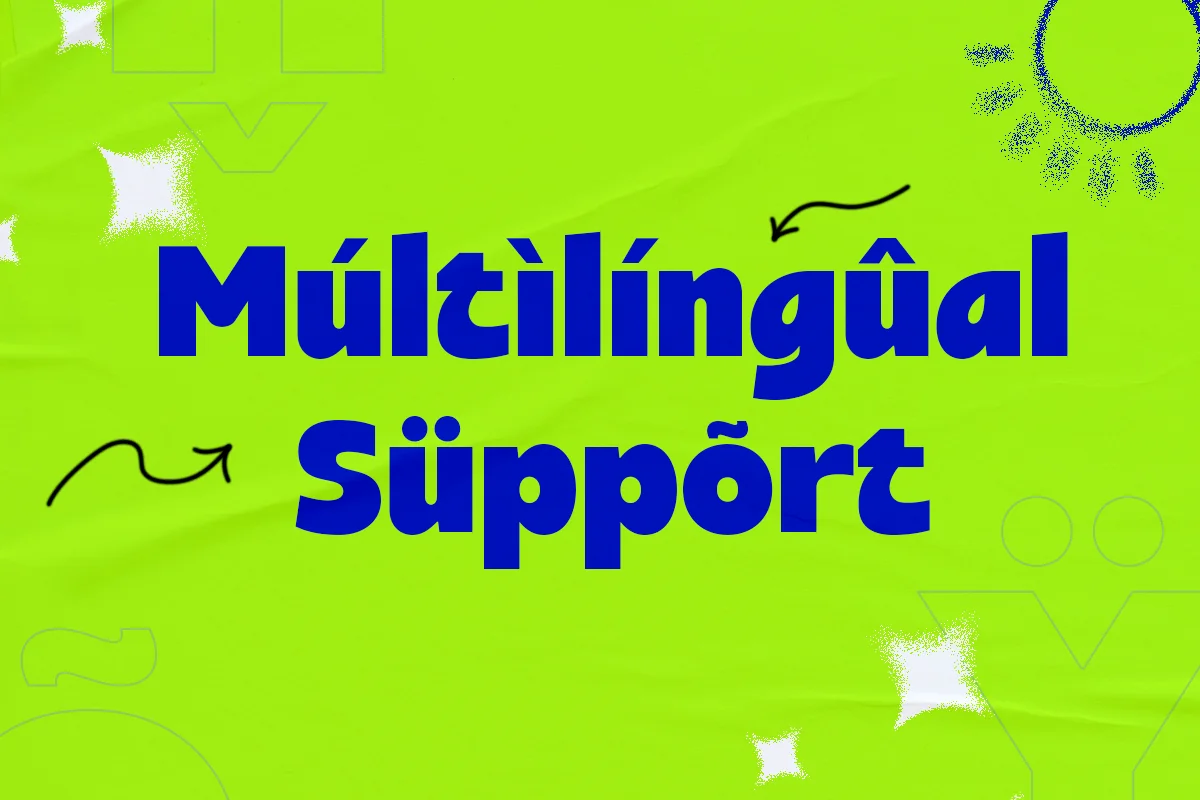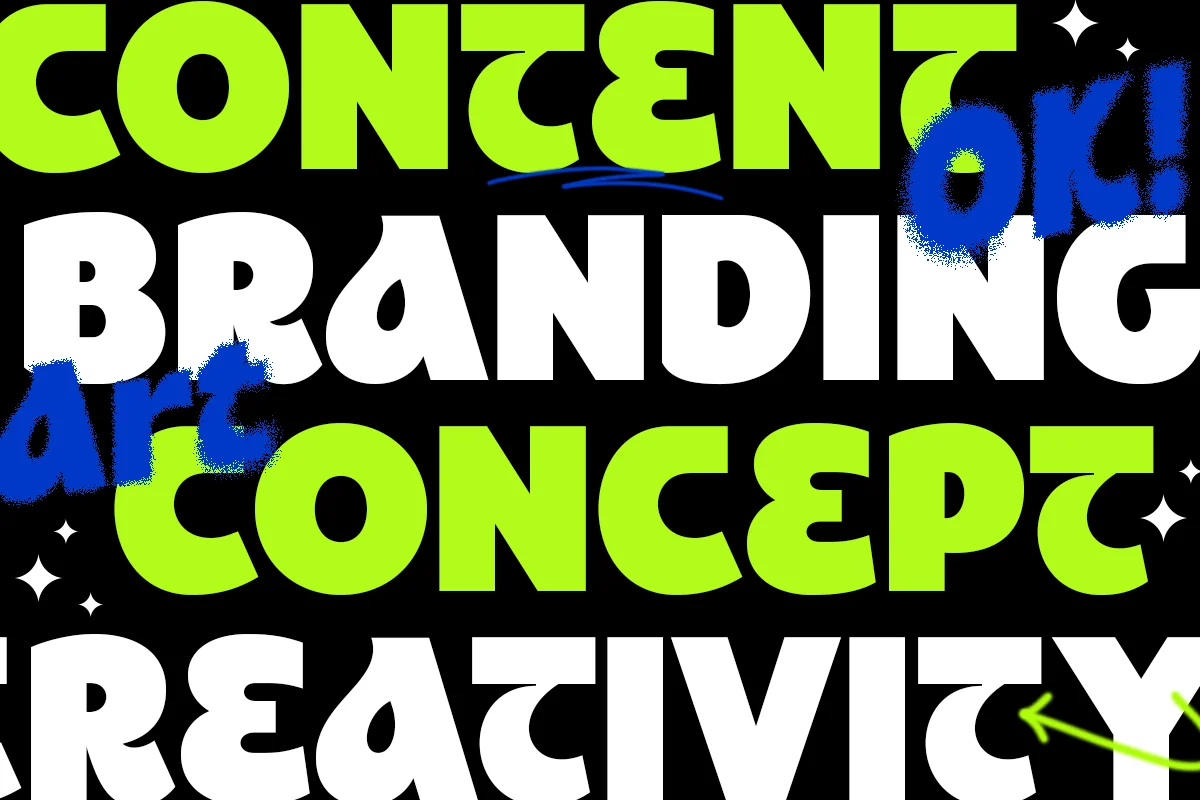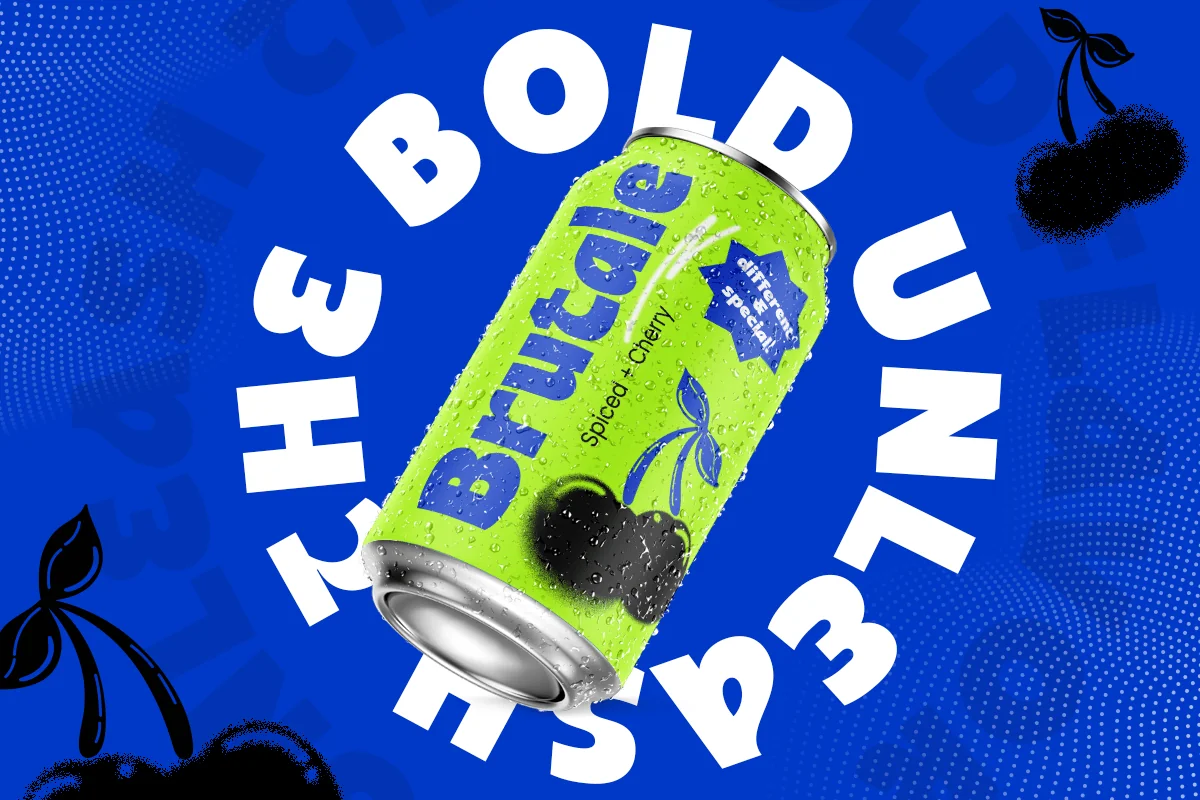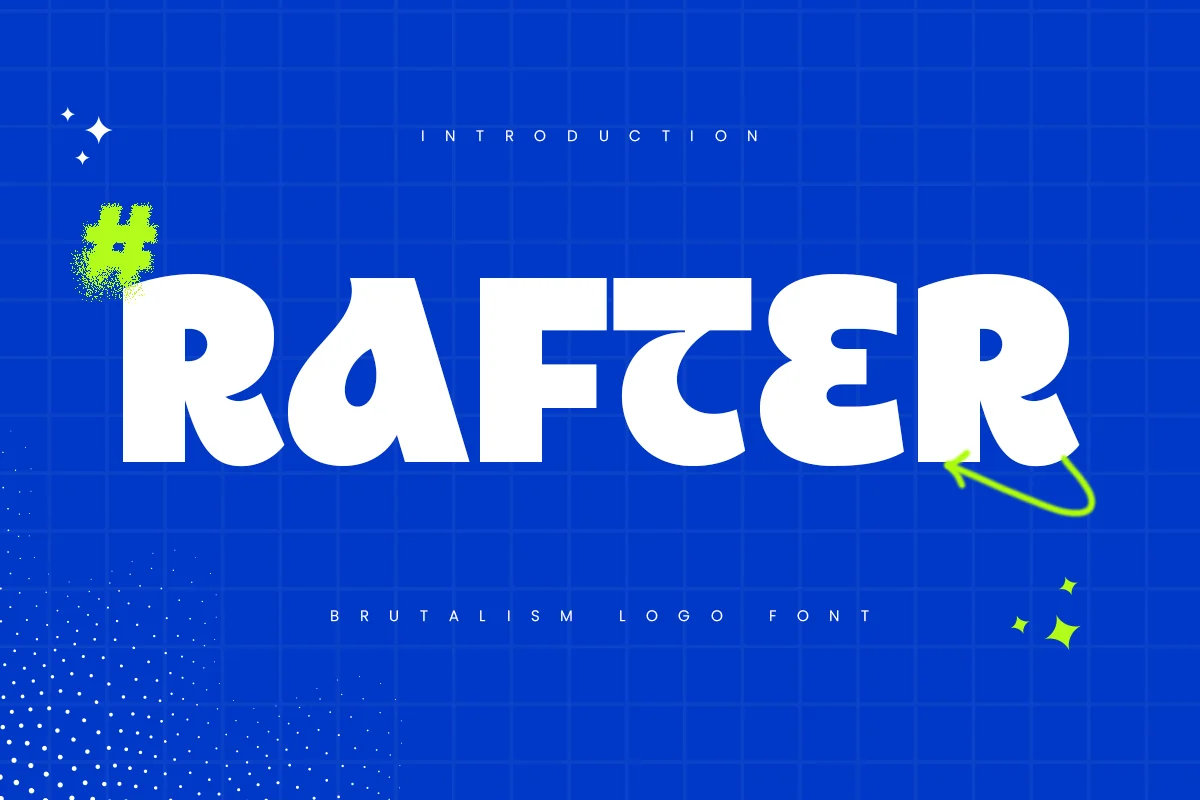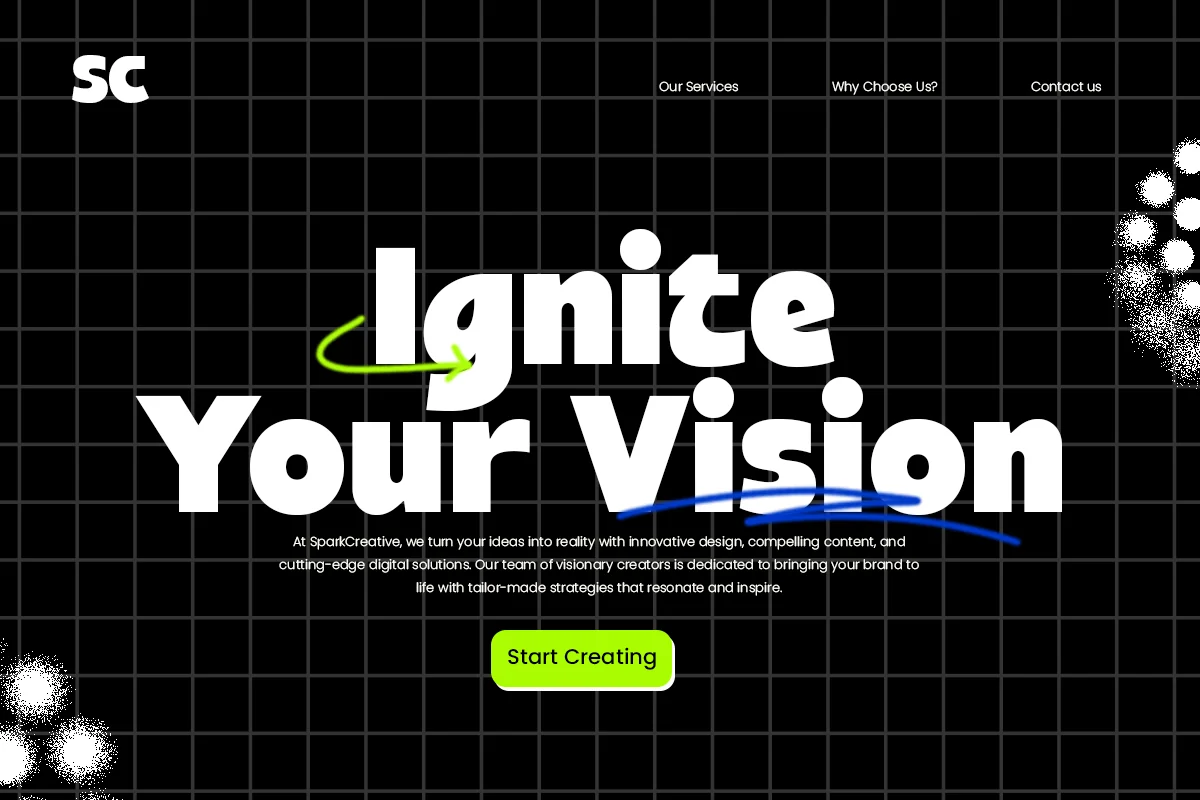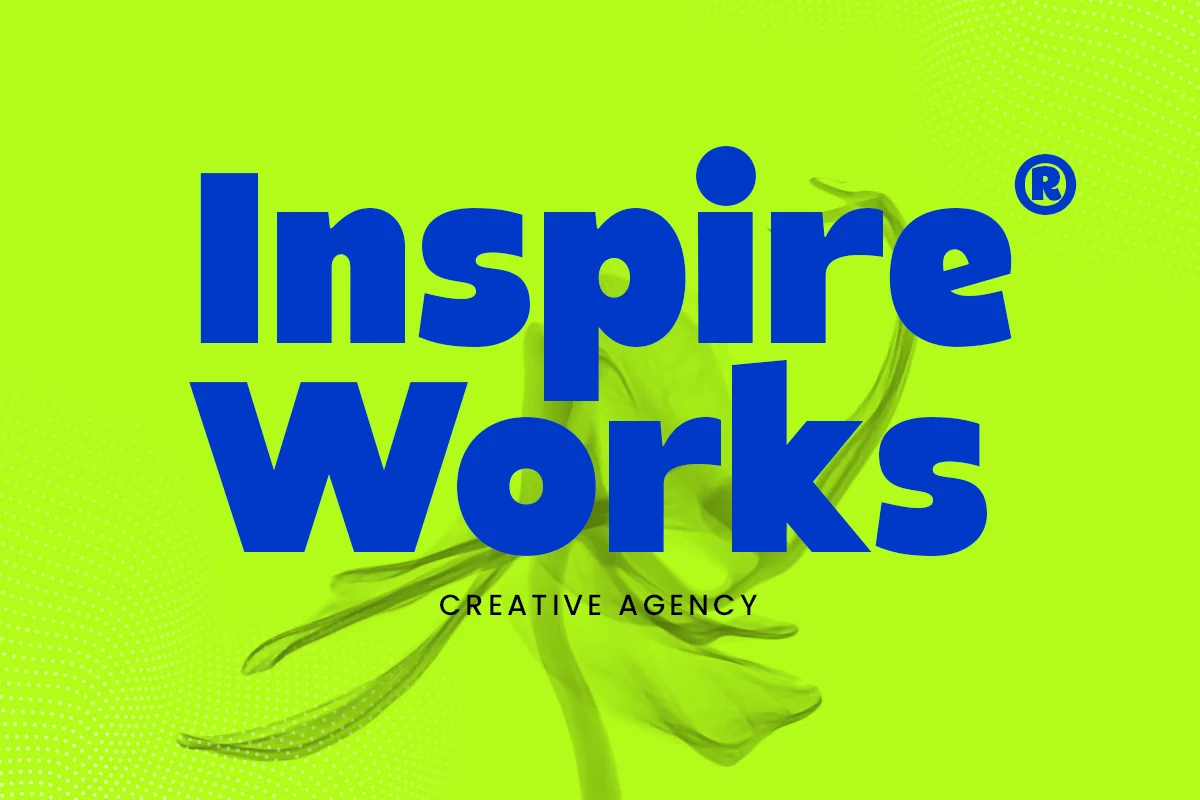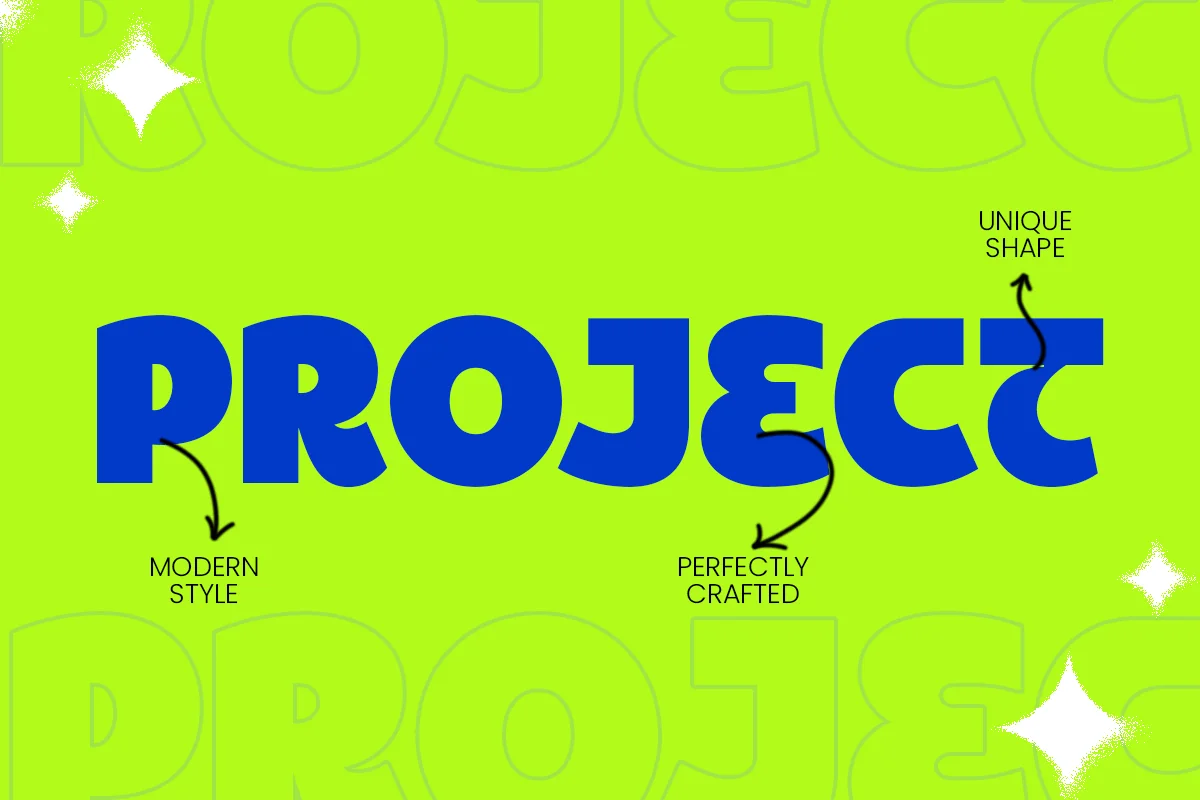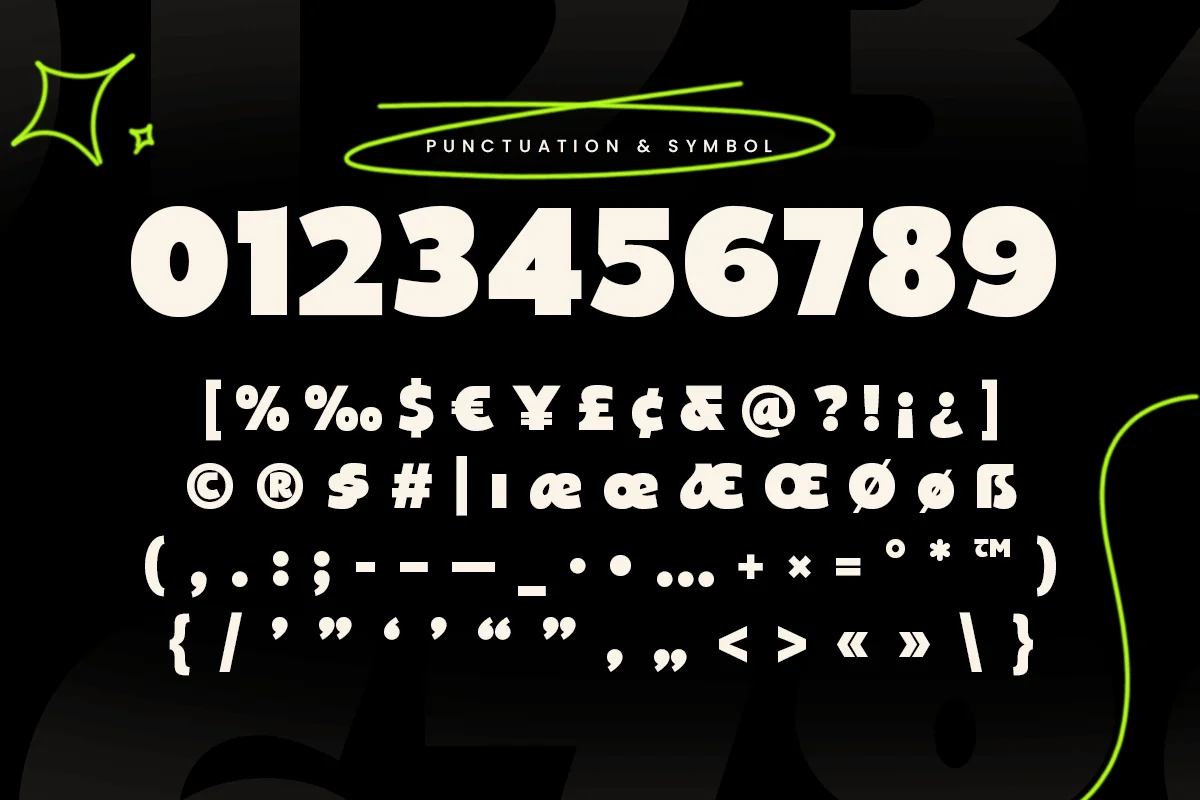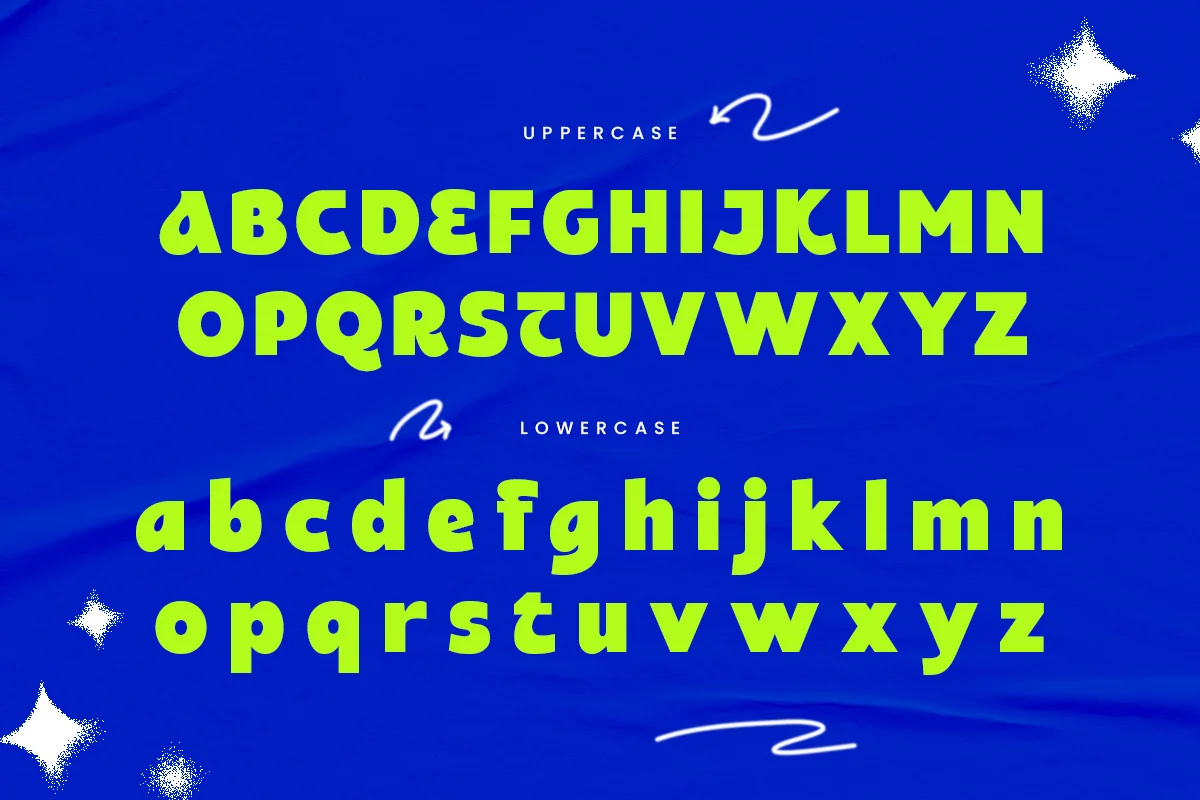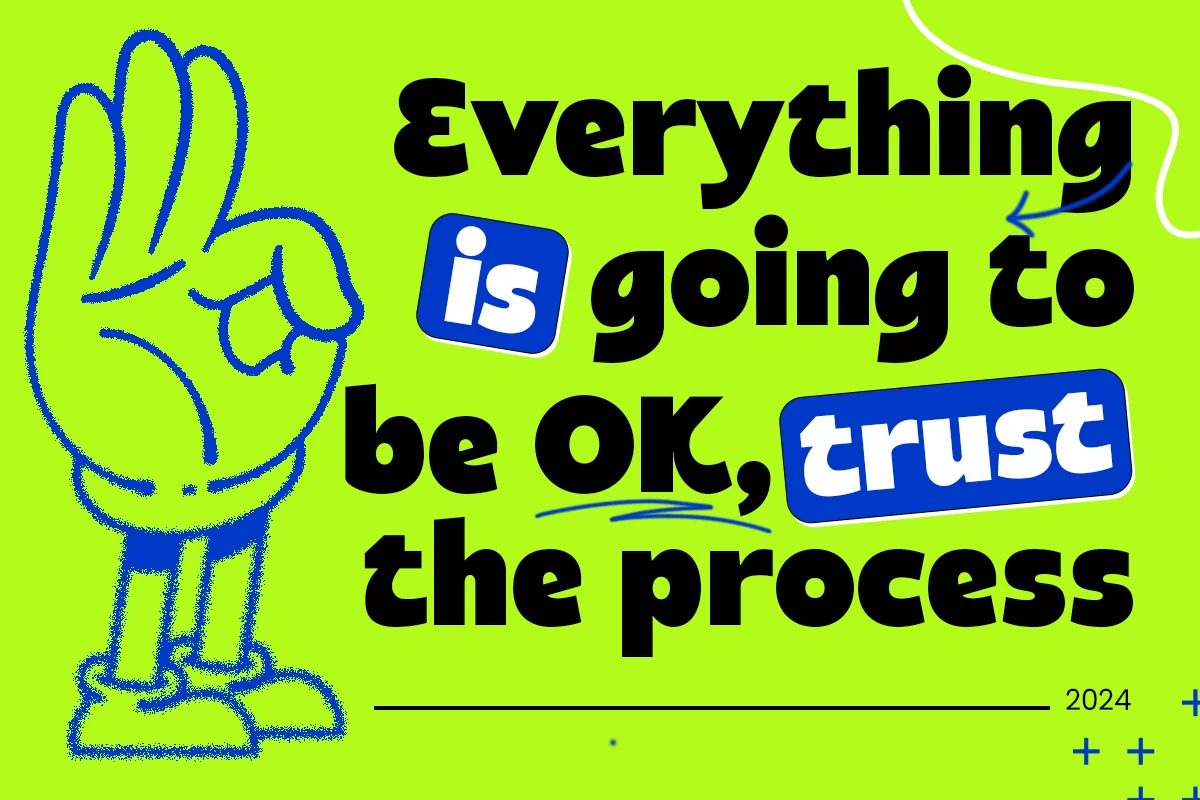
Rafter – Brutalism Logo Font
Rafter is a font born from the principles of brutalism, embodying strength and stark beauty. Its bold, uncompromising lines make it perfect for logo design, branding, and display purposes. Rafter’s unique style captures attention and leaves a lasting impression, making it an excellent choice for projects that demand visual impact.
The inspiration behind Rafter comes from the architectural brutalism movement, characterized by its raw and powerful aesthetics. This font translates that ethos into typography, offering a distinct look that stands out in any context. Whether you’re working on a cutting-edge tech brand, a contemporary art project, or a bold marketing campaign, Rafter delivers the visual punch you need.
Rafter includes a complete set of punctuation, numbers, and symbols, supporting both uppercase and lowercase letters. Its multilingual support ensures your designs communicate effectively across different languages. Available in multiple file formats, Rafter adapts to various design tools and platforms, making it a versatile addition to your font collection.